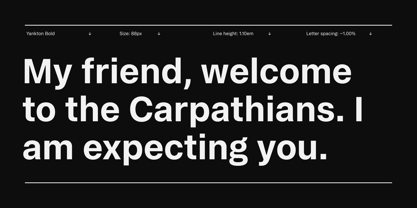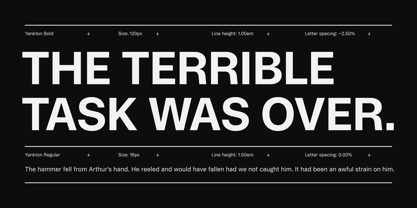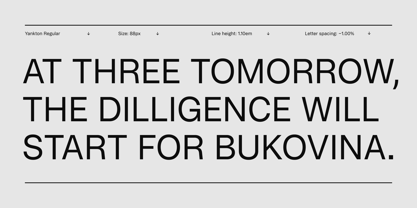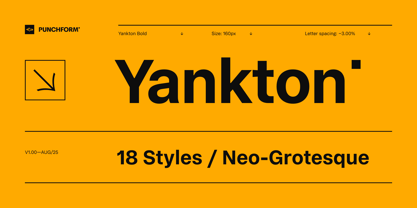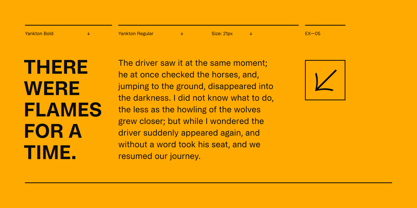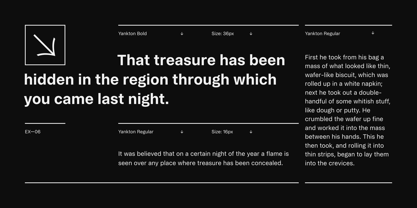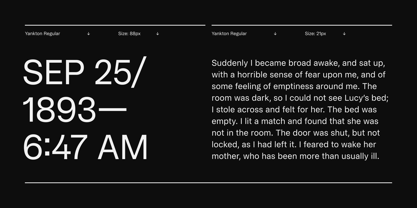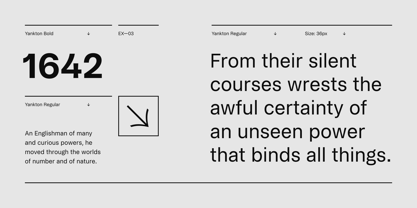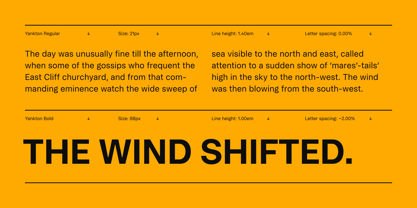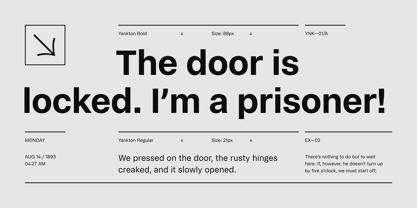
Yankton
by Punchform
The Yankton Font Family was designed by Ruls Do Paolo and published by Punchform. Yankton contains 18 styles and family package options.
Yankton is a neo-grotesque sans-serif designed by Ruls Do Paolo and published by Punchform in 2025. The family consists of 18 styles, which include nine upright weights from Thin to Black, along with matching italics. This variety helps create a clear typographic hierarchy across sizes. OpenType features include Stylistic Alternates, Case-Sensitive Forms, Tabular Figures, Superscripts and Subscripts, and Fractions. Yankton covers the Latin script and supports 128 languages.